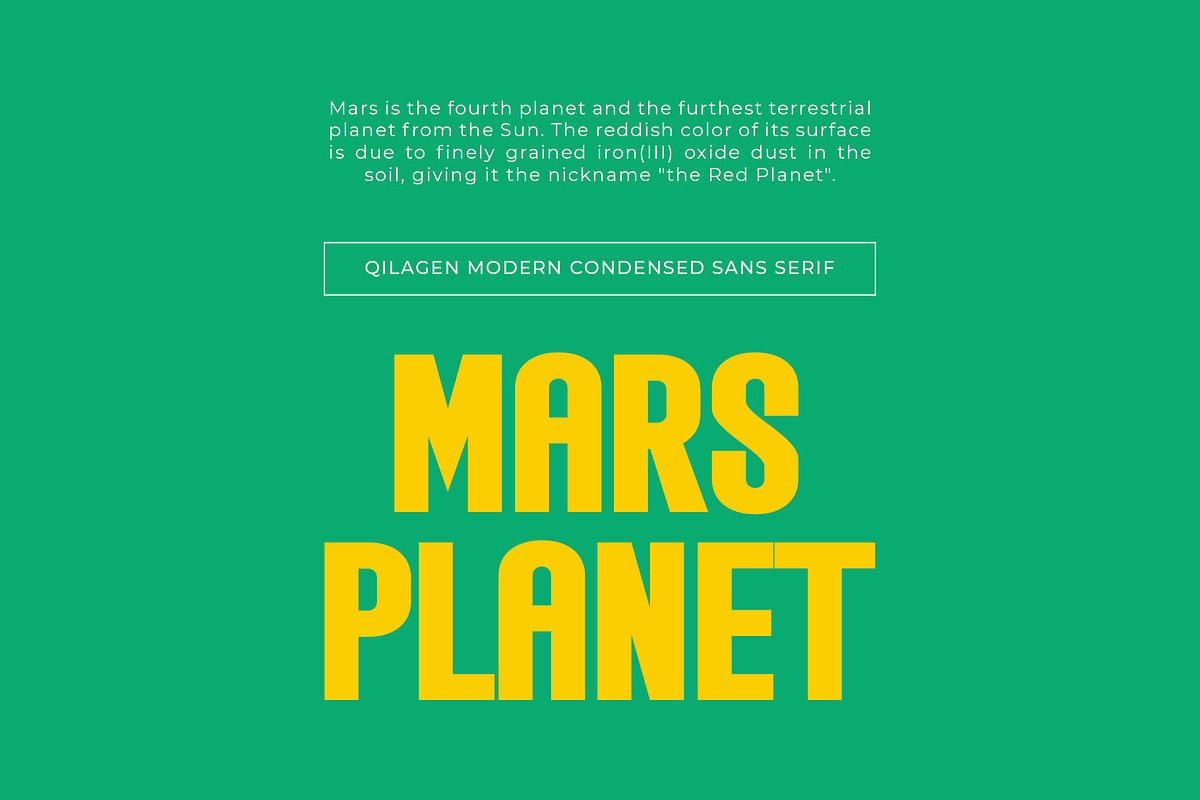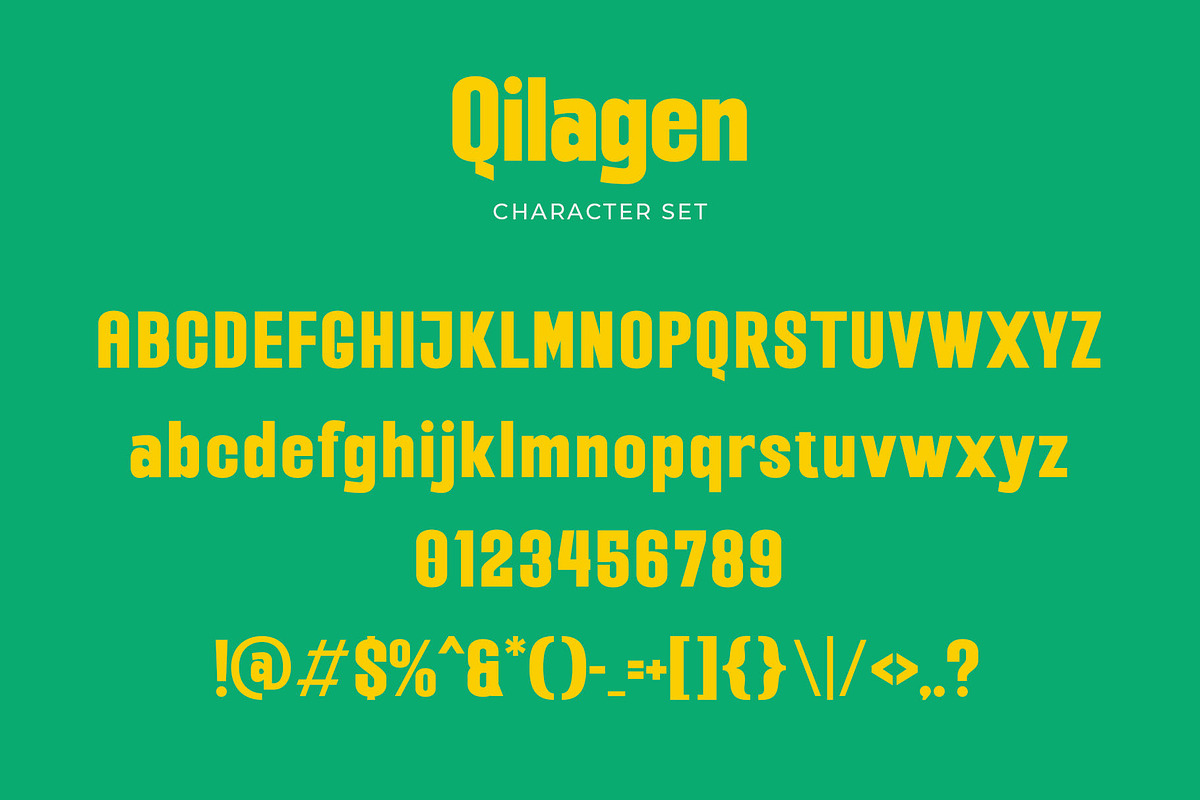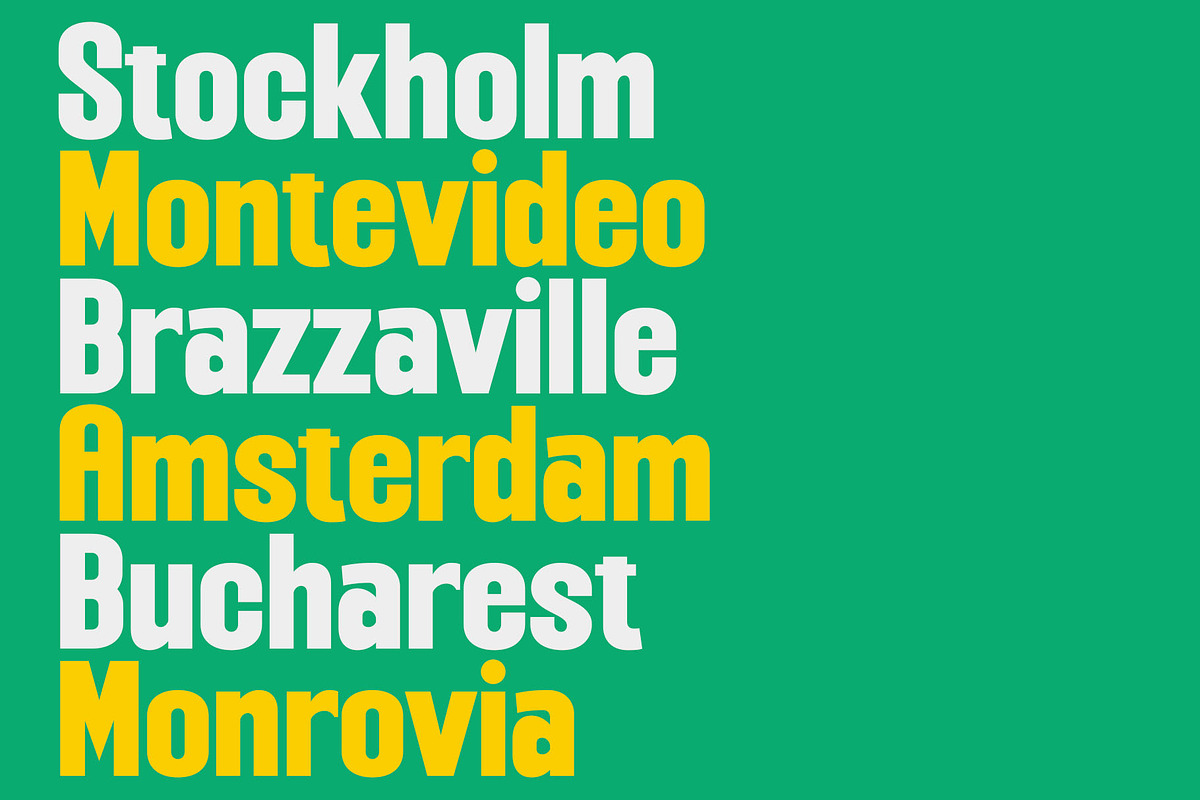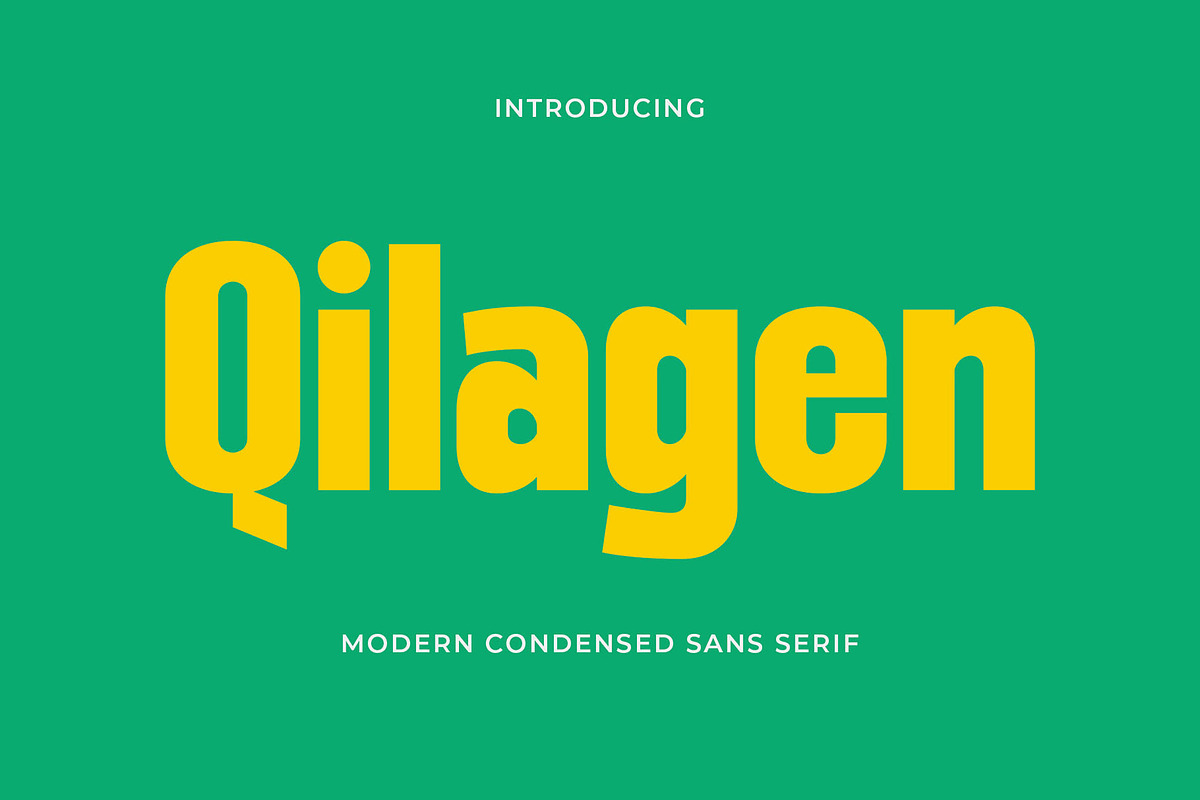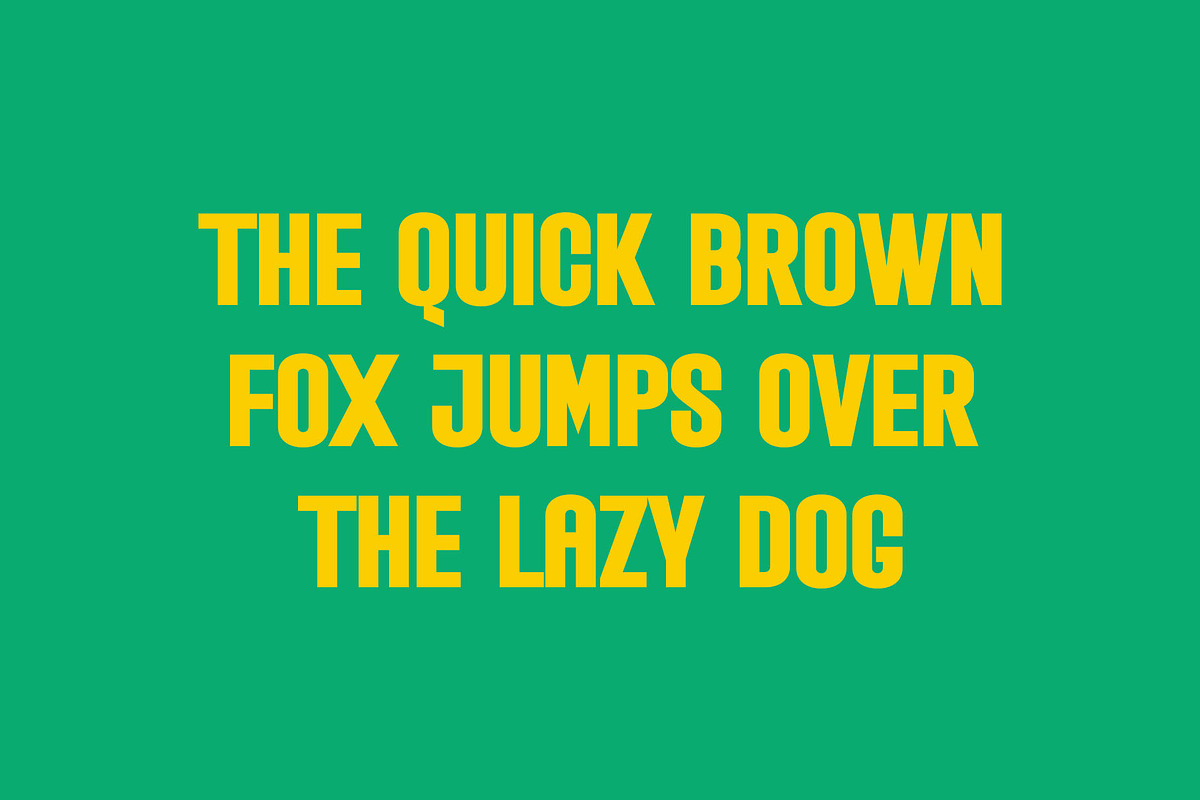
Qilagen - Modern Condensed Sans Seri
Qilagen - Modern Condensed Sans Serif
Introducing our new Qilagen, modern sans serif font with elegant style this is perfect for branding, logos, invitation, magazines, product packaging and more.